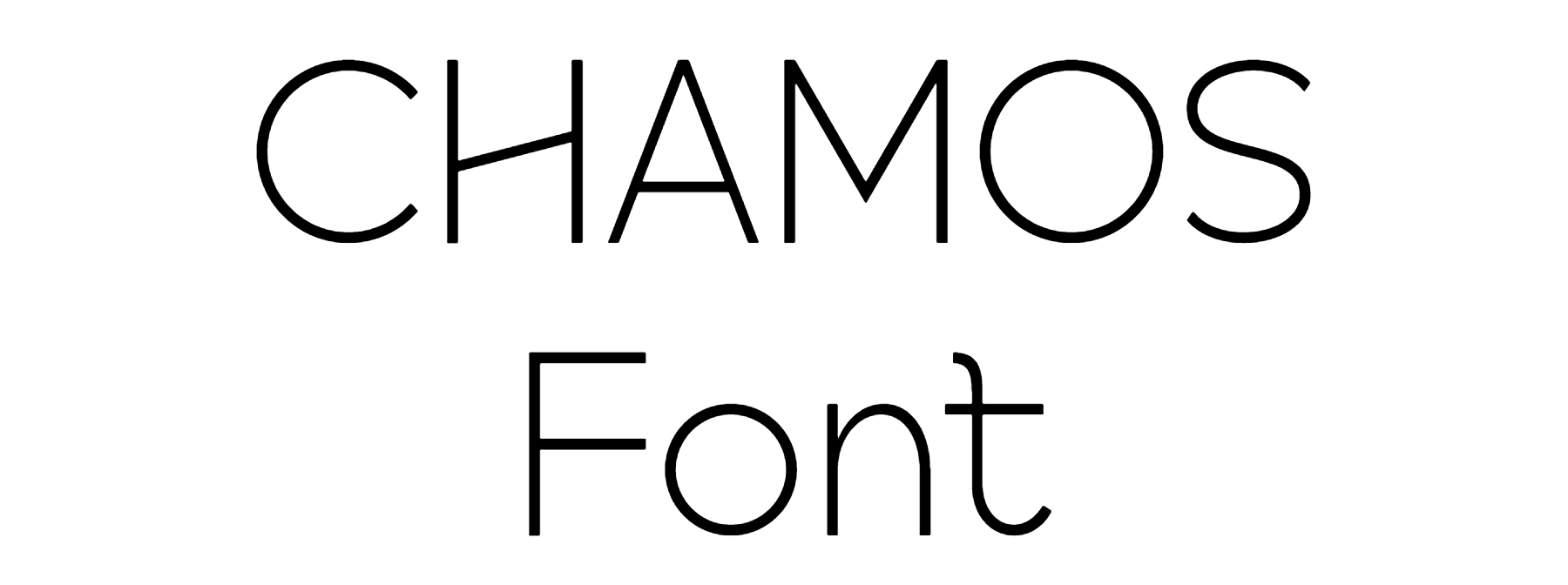
CHAMOS
CHAMOS is a sans serif font created by Maikohatta. Its clean letters skip the little "feet" (serifs) of traditional type, so it looks modern and reads well on screens. You can download it for free and test it with your own words in the preview above.
- Designer: Maikohatta
- Glyphs: 245
- OpenType features: Ligatures (including optional ones)
- Extra characters: 28 copy-and-paste alternates (Private Use Area)
What You Can Type With CHAMOS
With complete upper and lowercase letters and all ten digits, CHAMOS is ready for real wording, not just a single headline. Everyday marks like &, !, ? and @ are there too. Thanks to its accented letters, it also works for Spanish, French, Portuguese and Italian, not just English.
How to Use the Alternate Letters in CHAMOS
Where CHAMOS Works Best
Think of CHAMOS for websites, app screens and clean logos. It works for headings and body text alike. If the download has several weights, use a heavier one for titles and a lighter one for paragraphs.